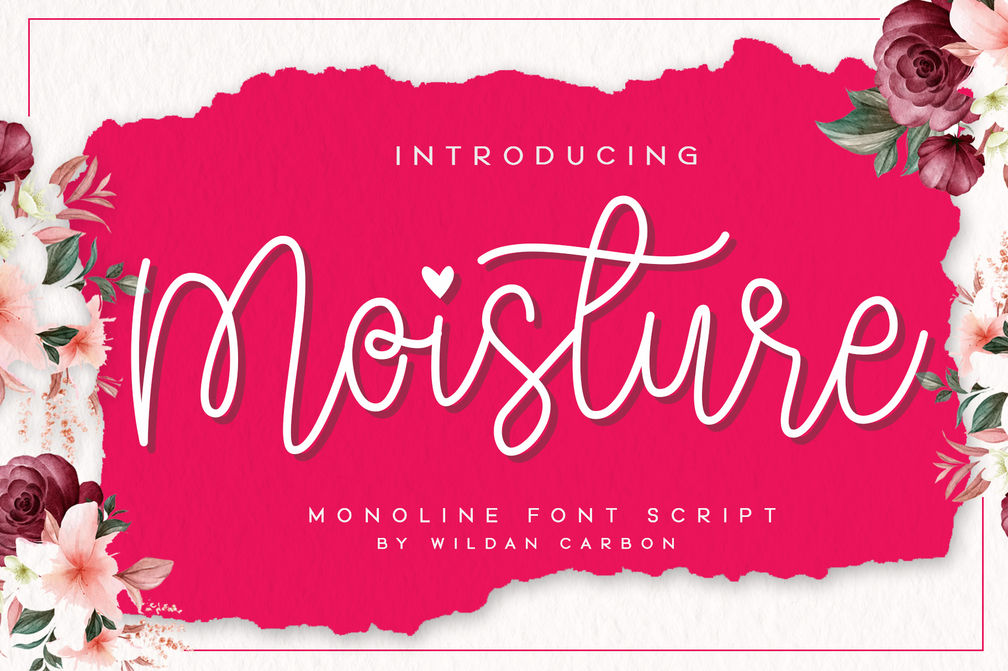
Moisture
Moisture is monoline handwritten, modern calligraphy font. The shape is modern and unique and the writing style is very natural. You can create many beautiful typographic designs in an instant like branding, web design and editorial, prints, crafts, quotes,
It’s great for logotypes, wedding invitations, romantic cards, labels, packaging, spelling of names and others. Add to your most creative ideas and watch how they bring them to life!